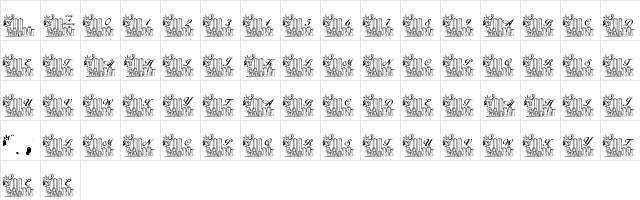
LCR Only A Memory Regular
Design Context for LCR Only A Memory Typeface
LCR Only A Memory is a composed and adaptable typeface that performs quietly and consistently across a wide range of design contexts.